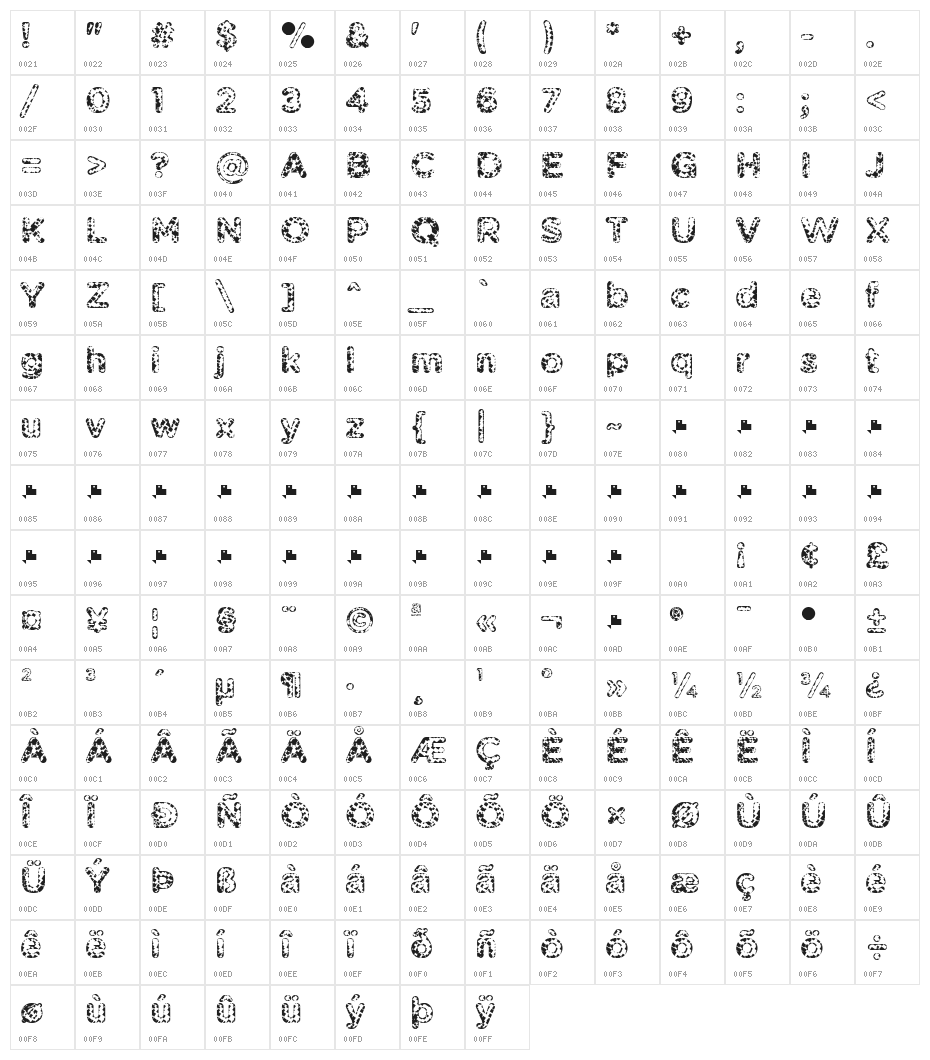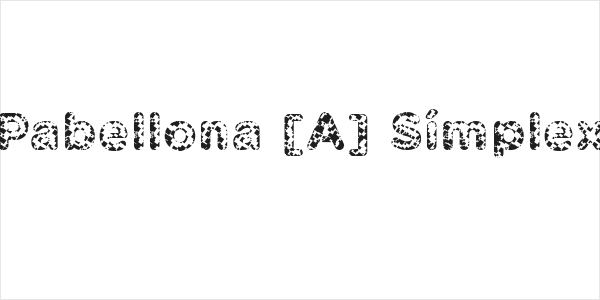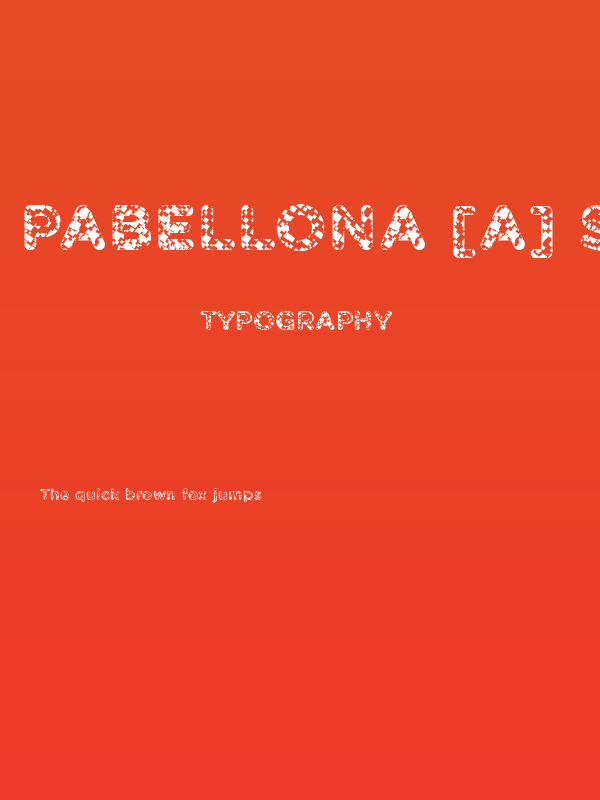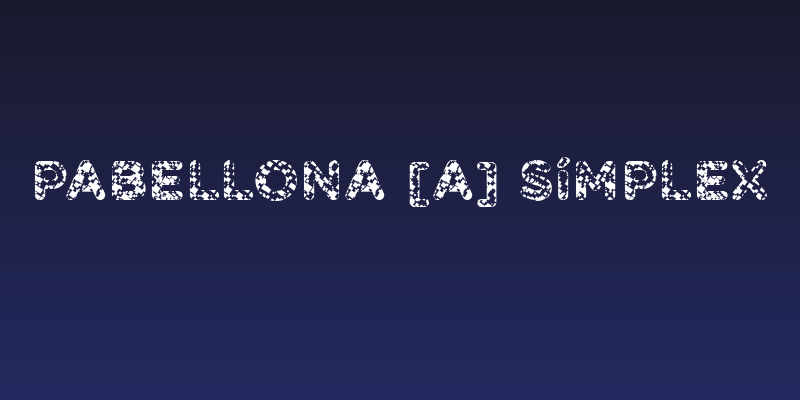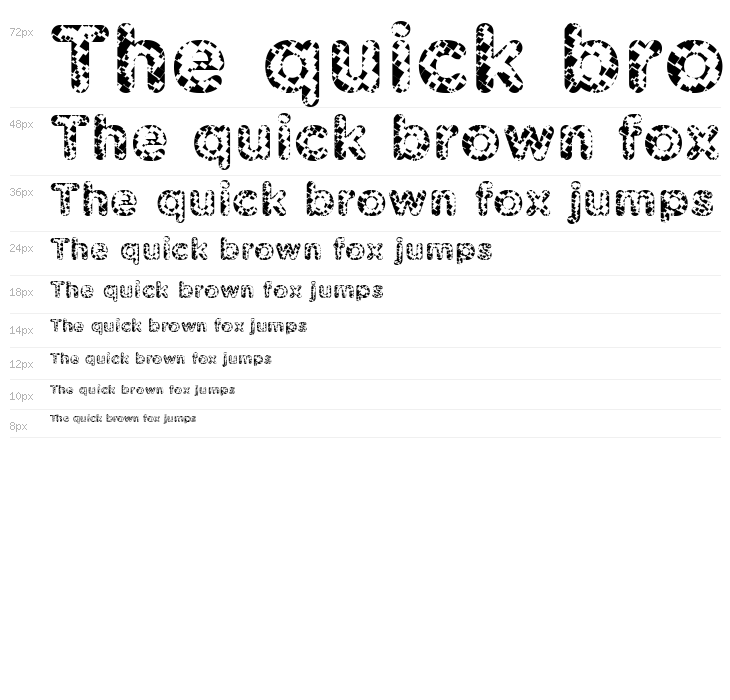
Pabellona [A] Símplex Font
Pabellona [A] Símplex Description
This font features a unique, decorative style with a textured, patterned fill that resembles a patchwork or quilt-like design. The characters are bold and rounded, providing a playful and eye-catching appearance. The uppercase and lowercase letters maintain a consistent style, with rounded edges and a uniform pattern throughout. Numbers and special characters follow the same design, ensuring a cohesive look across all glyphs. This font is ideal for projects that require a fun and distinctive aesthetic, making it suitable for creative and artistic applications.
| Proposed Projects | Ideal for posters, children's book covers, playful branding, and creative invitations. |